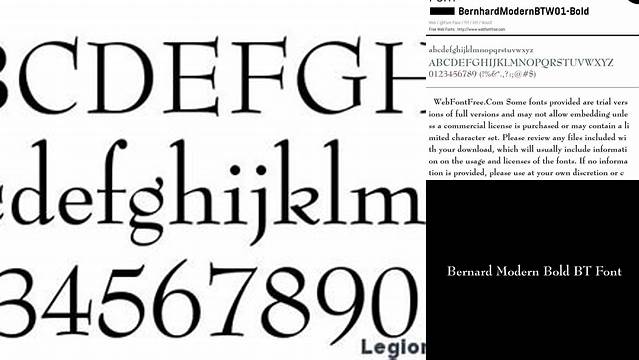
1. What is Bernhard Modern BT Font?
The Bernhard Modern BT font is a classic typeface known for its clean lines, elegant curves, and overall modern aesthetic. It's a versatile font that works well in a variety of applications, from print to digital. The bernhard modern bt font free download has been a favorite among designers for decades, and it continues to be a popular choice today. Understanding its characteristics is crucial to leveraging its full potential in your design projects. This section will delve into the specifics of the font's design, its unique features, and what makes it stand out from other fonts in its category. Think of it as getting to know the personality of the font – its quirks, its strengths, and how it communicates visually.
1.1. History and Evolution of Bernhard Modern BT
Let’s take a quick trip down memory lane! The Bernhard Modern BT font has a rich history, originating from the early 20th century. Knowing its origins helps you appreciate its design and how it fits into the broader context of typography. The bernhard modern bt font free download is more than just a set of characters; it's a piece of design history. This font's evolution has seen it adapted for various uses, reflecting changes in design trends and technology. The journey from its initial conception to its current digital form is a testament to its enduring appeal and adaptability. By exploring its historical roots, we gain a deeper understanding of its unique qualities and its relevance in contemporary design.
1.2. Key Features and Characteristics
What makes Bernhard Modern BT special? It's all in the details! From its distinctive serifs to its elegant letterforms, this font boasts several key features that set it apart. When you're looking for a bernhard modern bt font free download, you're looking for a font that offers a particular aesthetic. Its clean lines and balanced proportions create a sense of sophistication and clarity. This section will break down these characteristics, highlighting the nuances that make Bernhard Modern BT a standout choice for various design applications. Understanding these features will empower you to use the font effectively, ensuring your projects convey the intended message and style.
1.3. Bernhard Modern BT vs. Other Modern Fonts
In the world of modern fonts, Bernhard Modern BT holds its own. But how does it compare to other popular typefaces? The bernhard modern bt font free download offers a unique blend of classic and contemporary elements. This comparison will help you see its strengths and how it might be a better fit for certain projects compared to alternatives. We’ll explore the subtle differences that make each font unique, such as letter spacing, stroke thickness, and overall aesthetic. By analyzing these factors, you can make informed decisions about which font best suits your design needs, ensuring your typography enhances your message.
10. Conclusion: Making the Most of Bernhard Modern BT Font